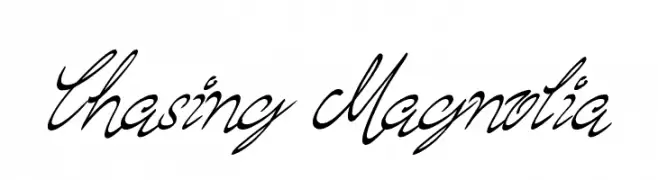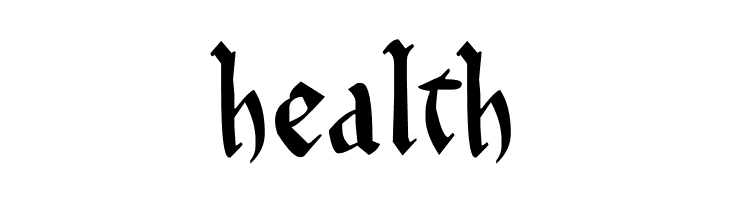
A playful handwritten font with fluid strokes and a whimsical style.
An elegant, flowing script font with graceful curves and a sophisticated style.
A geometric, industrial-style font with tall, narrow letterforms and angular serifs.
A playful, casual handwritten font with fluid strokes and a whimsical charm.
A bold and flowing script font with dynamic strokes and elegant curves.
A flowing, cursive font with elegant, looping strokes and a handwritten appearance.
A lively and flowing script font with smooth, cursive strokes and elegant loops.
A whimsical, hand-drawn font with decorative curls and playful style.
A playful handwritten font with a casual and friendly style.
An elegant script font with flowing, interconnected letters and ornate uppercase characters.
A graceful, cursive font with a fluid, handwritten style.
An elegant, flowing script font with a handwritten appearance.
A delicate, flowing script font with elegant, cursive forms and smooth curves.
A bold, elegant calligraphic font with dynamic, flowing strokes.
A classic calligraphic serif font with elegant, sweeping strokes.
A classic calligraphic font with elegant, flowing lines and refined aesthetics.
A bold, classic serif font with strong, pronounced strokes.
A classic serif font with elegant, slightly flared strokes and sharp serifs.
A classic serif font with sharp, angular serifs and a dynamic, authoritative appearance.
An elegant serif font with a classic italic slant.
A light, elegant serif font with italic styling, perfect for sophisticated designs.
A classic serif font with elegant curves and a strong presence.
A bold and italic font with a modern and dynamic style.
An elegant script font with flowing, interconnected letters and a sophisticated style.
A bold, dynamic script font with flowing cursive elements.
A playful, casual handwritten font with flowing letterforms.
A delicate and flowing script font with elegant curves.
A playful and whimsical script font with dynamic strokes and a modern calligraphic style.
A graceful, cursive script font with elegant, flowing letters.
A bold, brush script font with dynamic, hand-painted strokes.
A dynamic and flowing script font with elegant cursive letterforms.